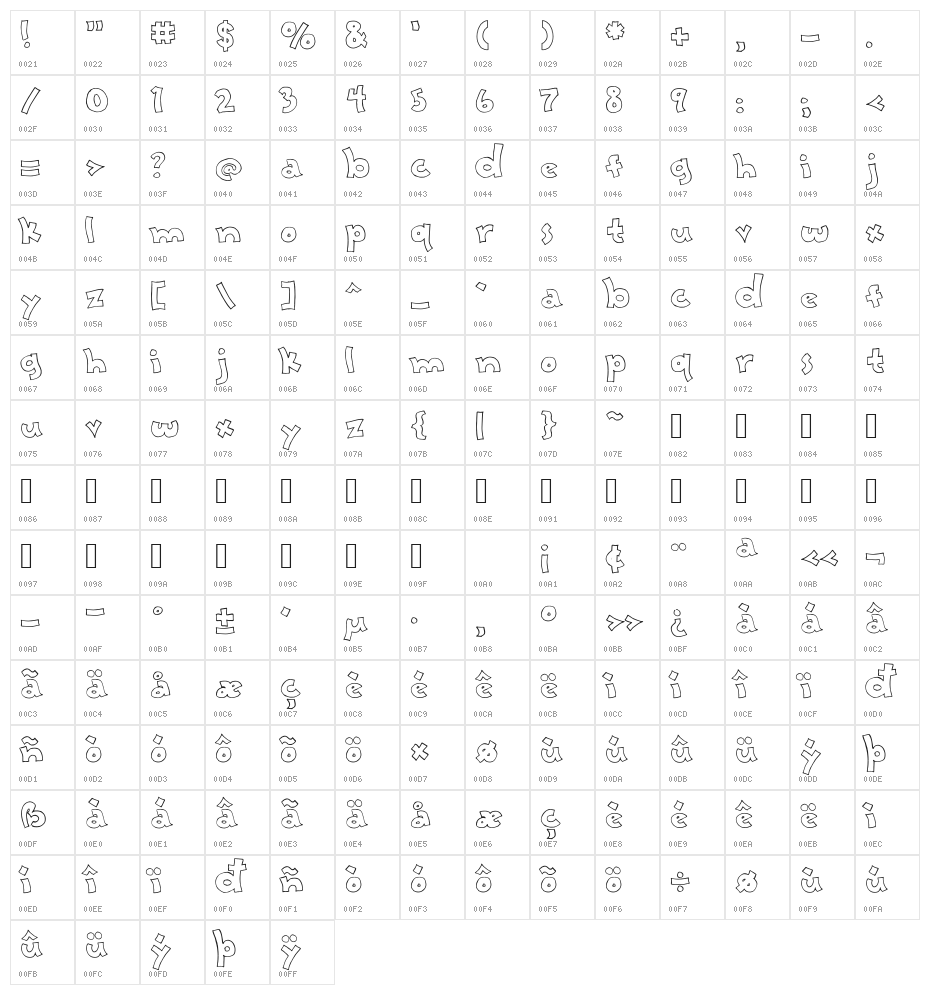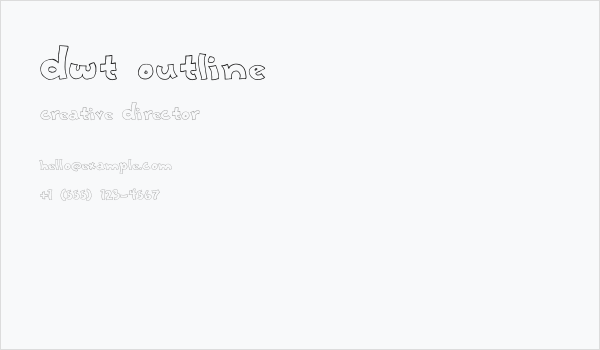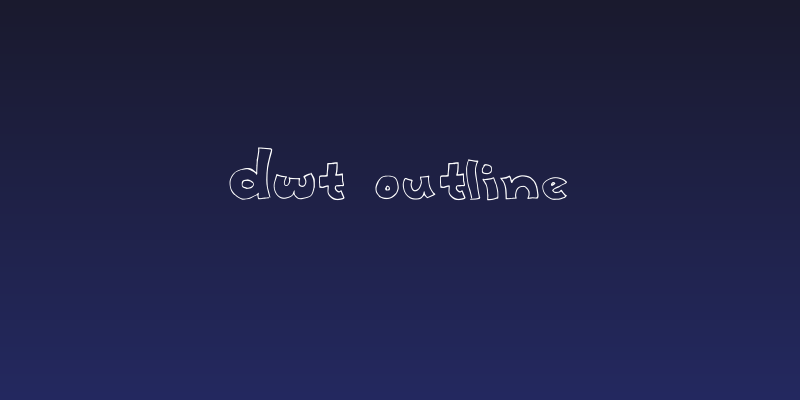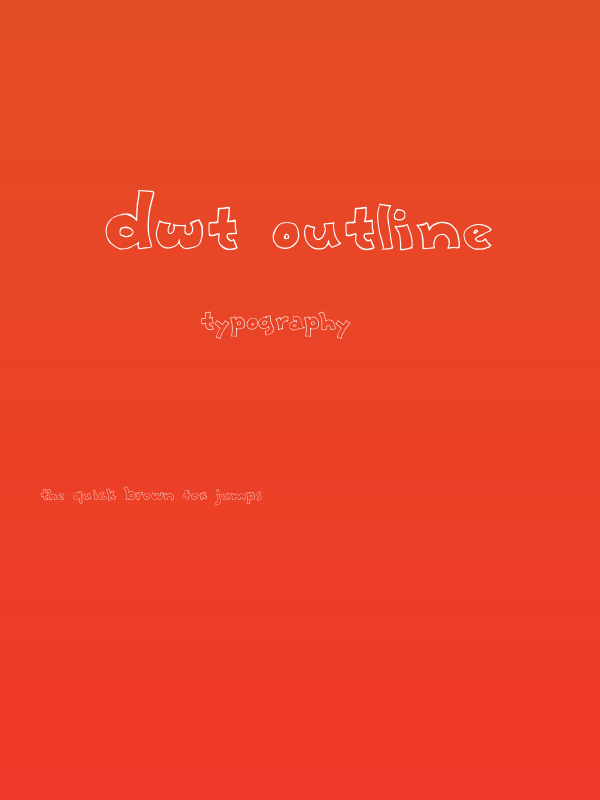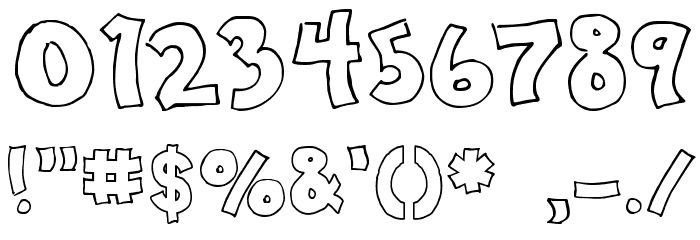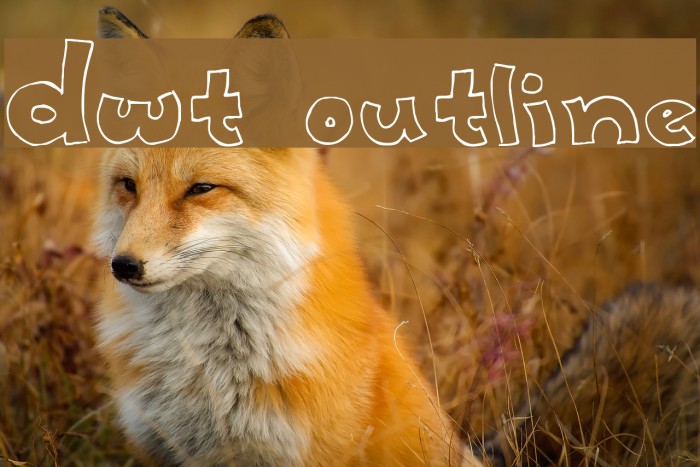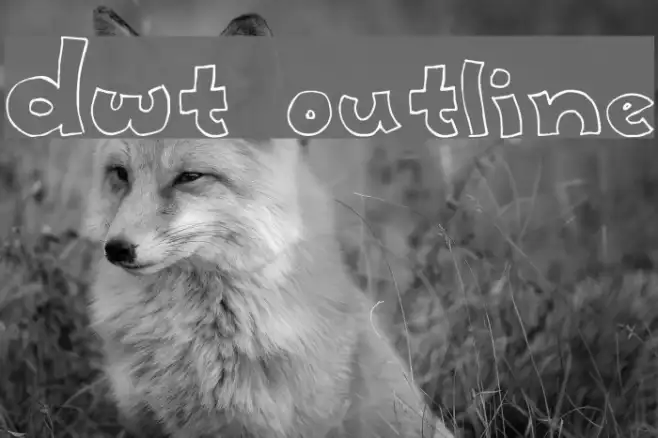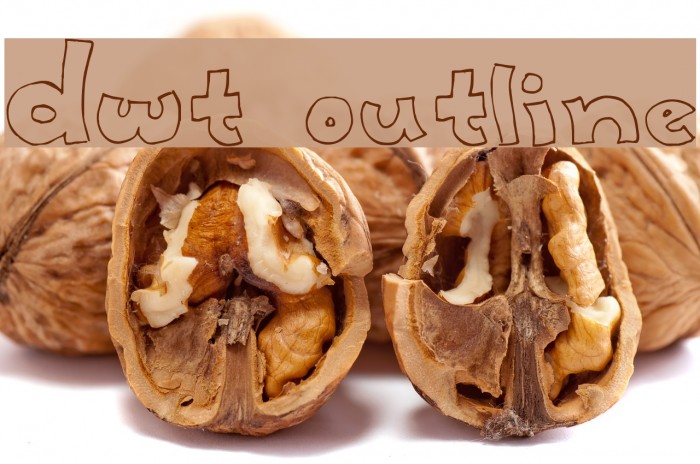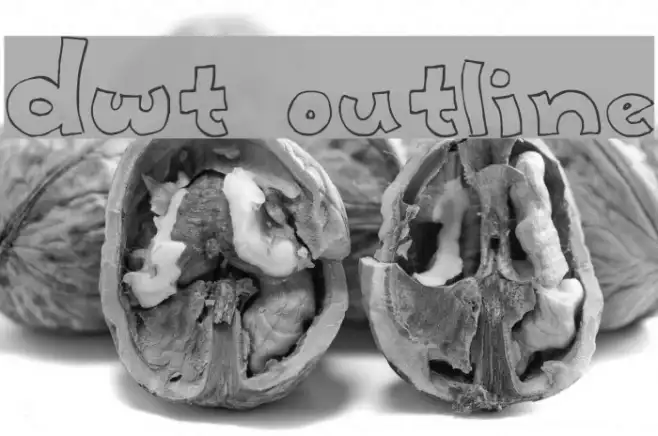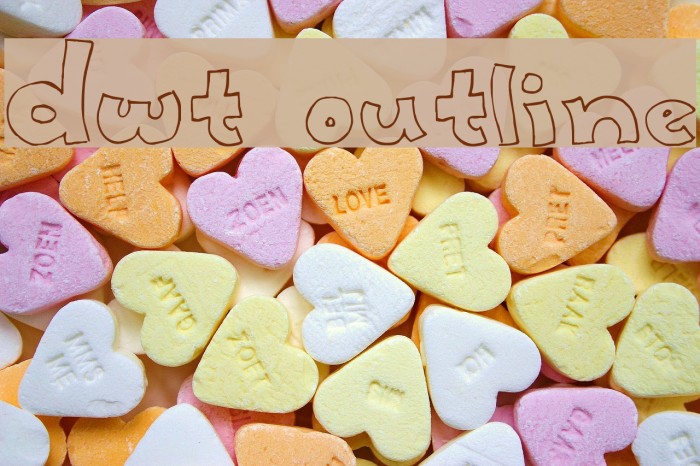
dwt Outline Font
dwt Outline Description
This playful and bold font features an outline style that gives it a unique and eye-catching appearance. The characters are slightly irregular, adding a whimsical and informal touch. The uppercase and lowercase letters maintain a consistent style, with rounded edges and a hand-drawn feel. Numbers and special characters are designed to match the overall aesthetic, making this font versatile for various creative projects. Its outline design allows for creative color fills and layering, enhancing its visual appeal.
| Proposed Projects | Ideal for children's books, comic strips, playful branding, and creative posters. |